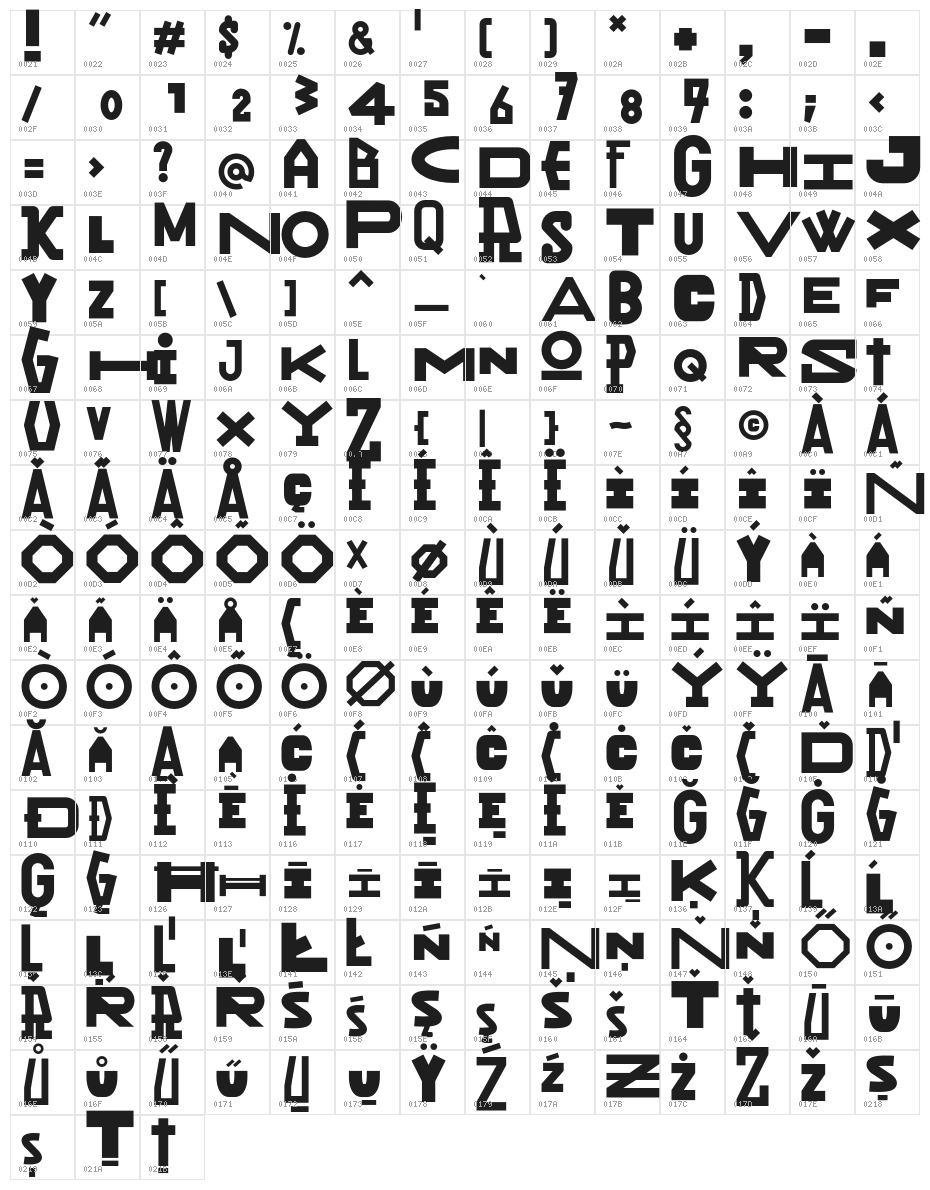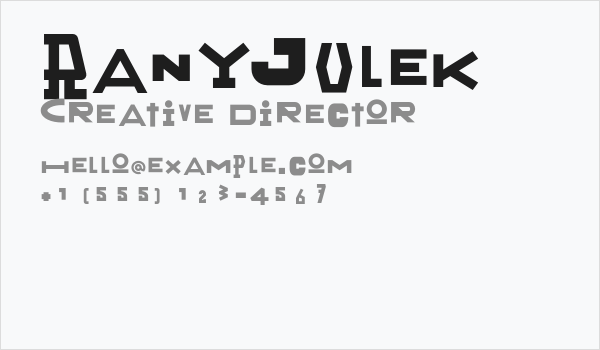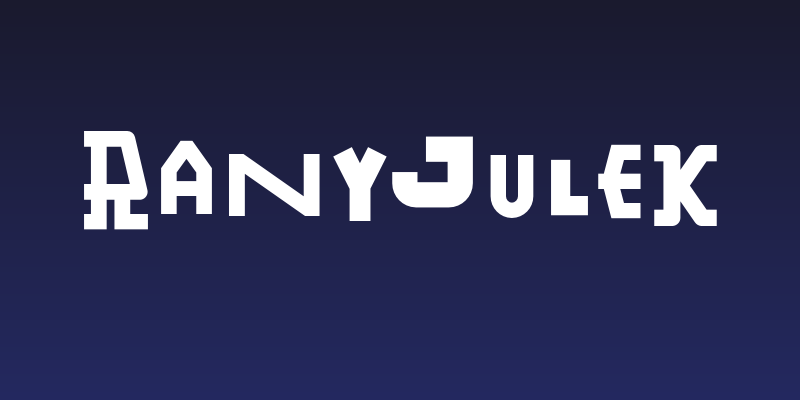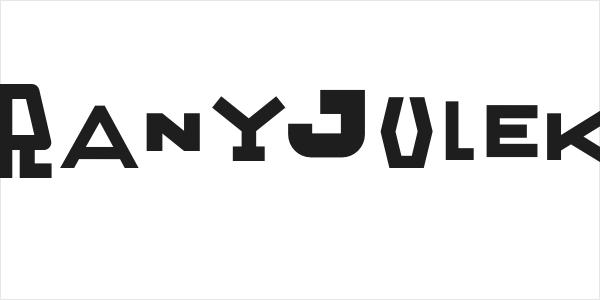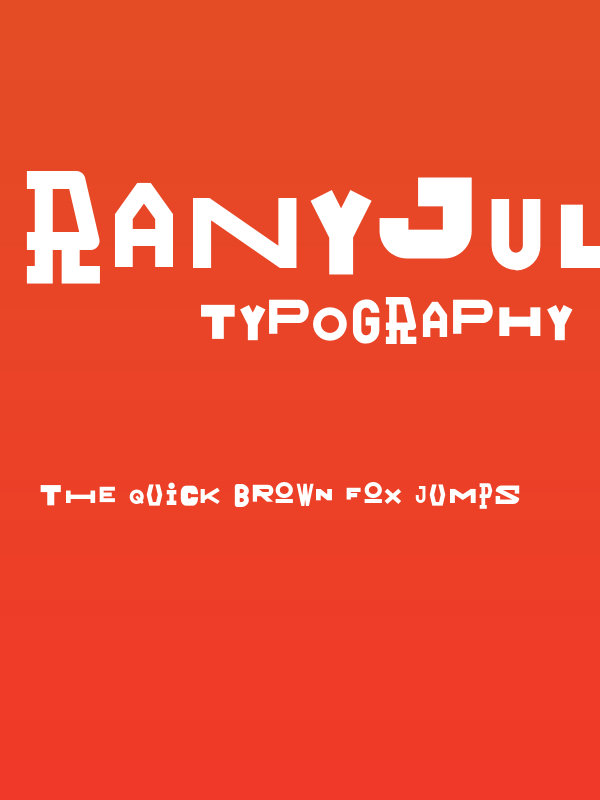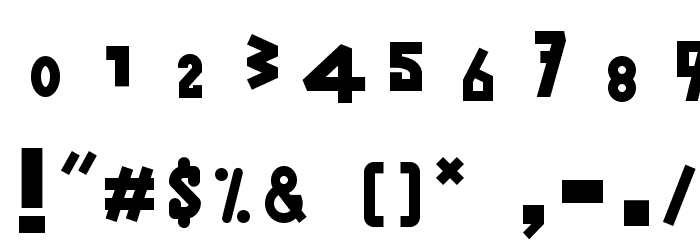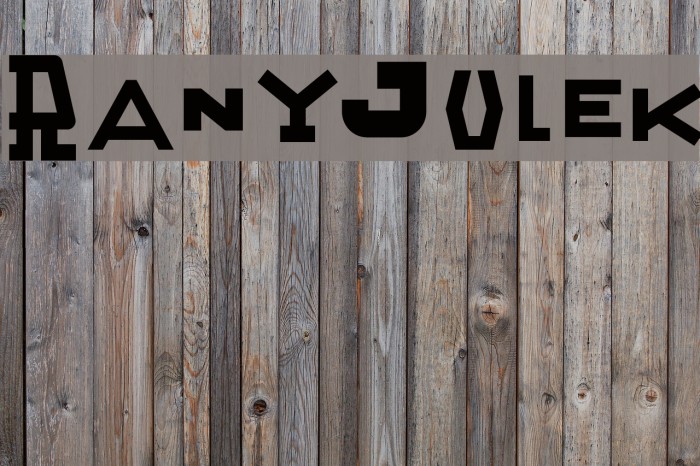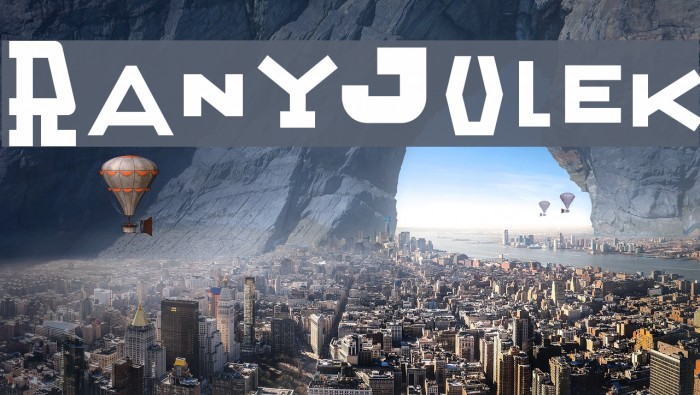
RanyJulek Font
RanyJulek Description
This font is a bold and dynamic display typeface with a distinctly modern and edgy appearance. The characters are crafted with a mix of sharp angles and geometric shapes, creating a sense of movement and energy. The uppercase letters are particularly striking, with unique forms that make each character stand out. The lowercase letters maintain the same boldness, ensuring consistency across the typeface. Numbers and special characters are designed with the same attention to detail, making them suitable for a variety of creative applications. The overall style is highly decorative, making it ideal for projects that require a strong visual impact.
| Proposed Projects | Ideal for posters, album covers, branding, and any project needing a strong visual impact. |